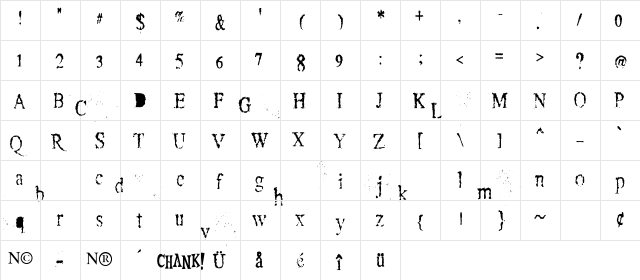
Crusti Medium
Design Context for Crusti Typeface
Crusti is a composed and adaptable typeface that performs quietly and consistently across a wide range of design contexts.